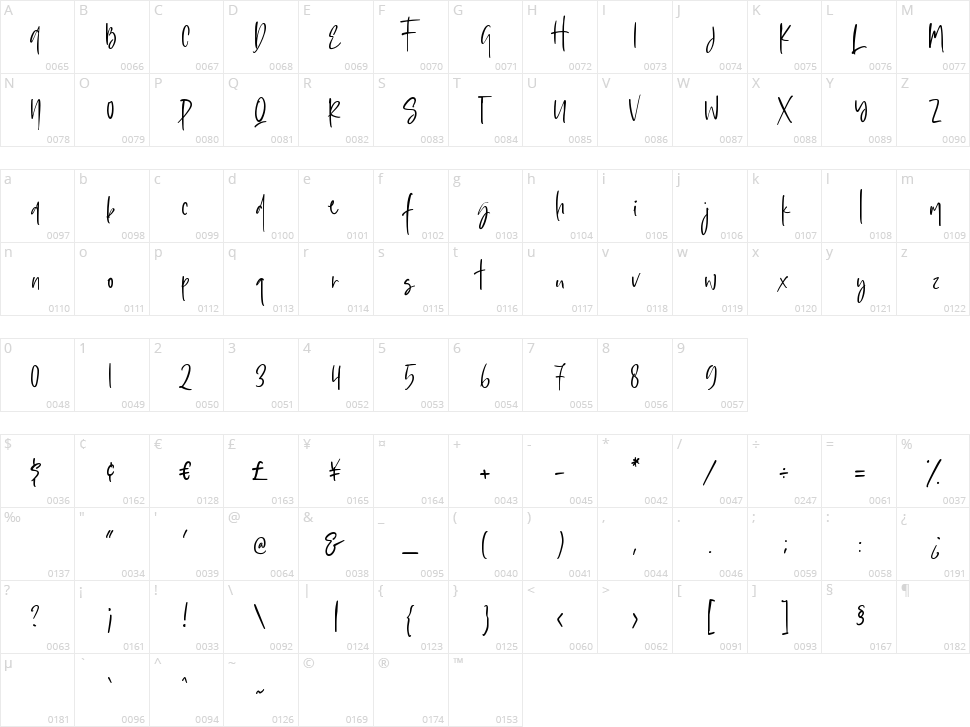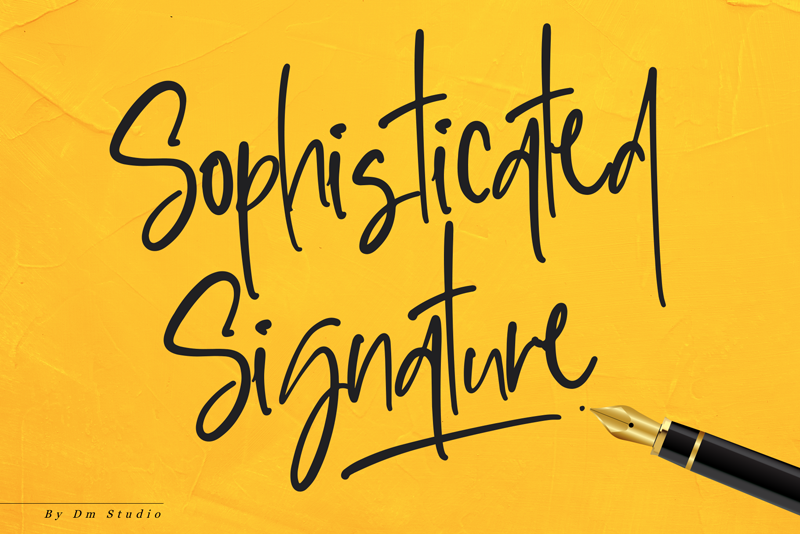
Sophisticated Signature
This enchanting font will turn any creative idea into a true standout.
Perfect fit for all of your logos, branding, social media, etc.
Get creative with its unique playfulness, and use it to brighten up any crafting project!